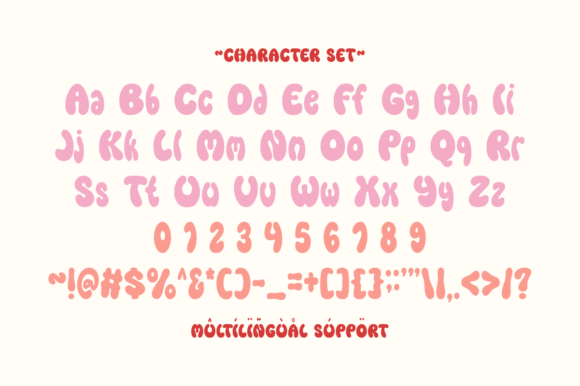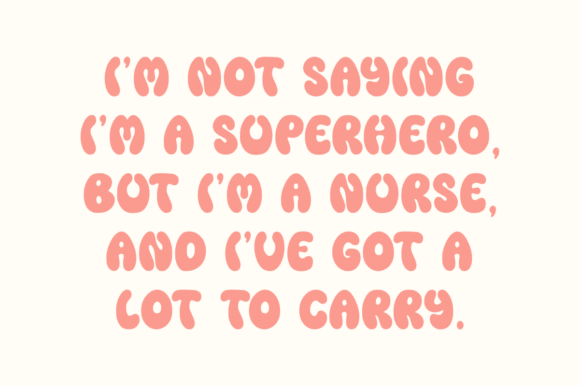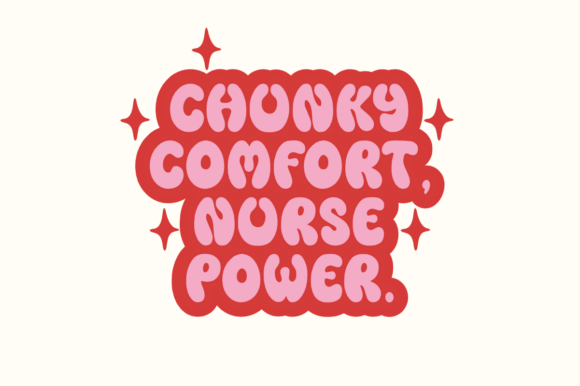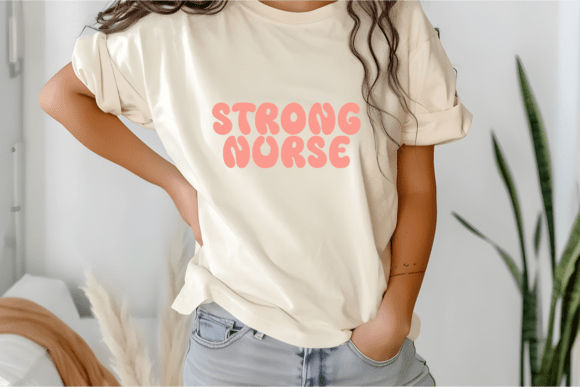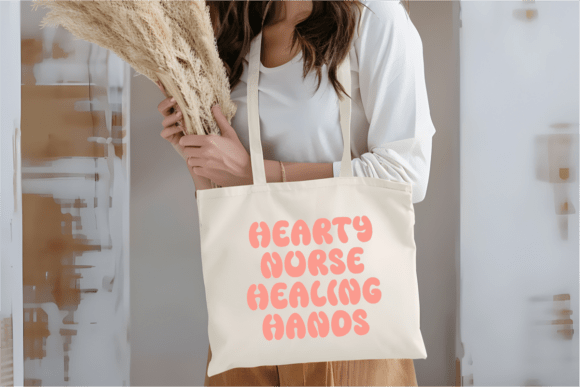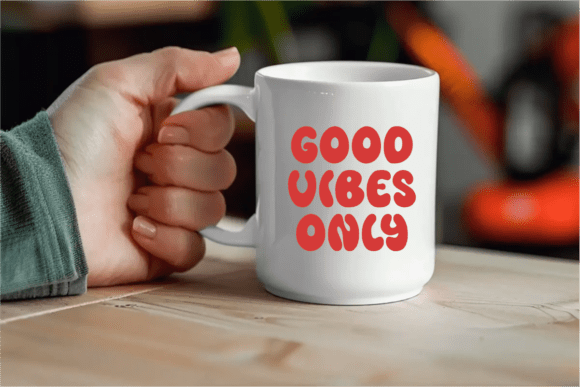
Introducing Chunky Nurse Font: The Ultimate Display Font for Fun and Playful Designs
Are you looking for a font that can add a touch of fun and playfulness to your designs? Look no further than Chunky Nurse, a display font that exudes a fun and thick personality with a touch of groovy charm. Its delightfully chunky and rounded letterforms, combined with subtle wavy edges, create a retro yet contemporary feel that’s both eye-catching and approachable.
The Perfect Font for Creative Endeavors
Chunky Nurse is perfect for injecting a dose of playful boldness into a wide variety of creative endeavors. Whether you’re designing stickers, planner designs, t-shirt slogans, labels, invitations, or personalized tumblers, this font is sure to bring a vibrant energy to your projects. Its distinctively thick and fun style makes it exceptionally well-suited for products targeting end-users who love to craft with Cricut, sublimation, and other DIY techniques.
A Retro-Inspired yet Modern Vibe
Chunky Nurse’s unique character will make your designs pop and bring a smile with its retro-inspired yet modern vibe. The font’s chunky and rounded letterforms are reminiscent of classic retro fonts, while its subtle wavy edges give it a contemporary feel. This combination makes Chunky Nurse the perfect font for designers and crafters who want to create unique and eye-catching designs that stand out from the crowd.
With Chunky Nurse, the possibilities are endless. Here are just a few ideas to get you started:
- Stickers: Add a fun and playful touch to your stickers with Chunky Nurse.
- Planner designs: Create eye-catching planner designs that are sure to stand out.
- T-shirt slogans: Design bold and playful t-shirt slogans that will make a statement.
- Labels: Create impactful labels that will grab attention.
- Invitations: Design unique and playful invitations for any occasion.
- Personalized tumblers: Add a touch of fun and personality to personalized tumblers.
Why Chunky Nurse is Perfect for DIY Crafters
Chunky Nurse is exceptionally well-suited for products targeting end-users who love to craft with Cricut, sublimation, and other DIY techniques. The font’s thick and fun style ensures that your creations will have a standout, memorable aesthetic. Whether you’re a seasoned crafter or just starting out, Chunky Nurse is the perfect font to add a touch of personality to your DIY projects.
Tips for Using Chunky Nurse in Your Designs
Here are a few tips for using Chunky Nurse in your designs:
- Experiment with different colors: Chunky Nurse looks great in bold and bright colors.
- Play with font sizes: The font’s chunky style looks great in large and small sizes.
- Combine with other fonts: Chunky Nurse pairs well with other fun and playful fonts.
- Use it for headlines: The font’s bold style makes it perfect for headlines and titles.
In conclusion, Chunky Nurse is a display font that is sure to add a touch of fun and playfulness to your designs. Its unique and eye-catching style makes it perfect for a wide variety of creative endeavors, from stickers and planner designs to t-shirt slogans and personalized tumblers. Whether you’re a designer or crafter, Chunky Nurse is the perfect font to bring a smile to your audience’s face.